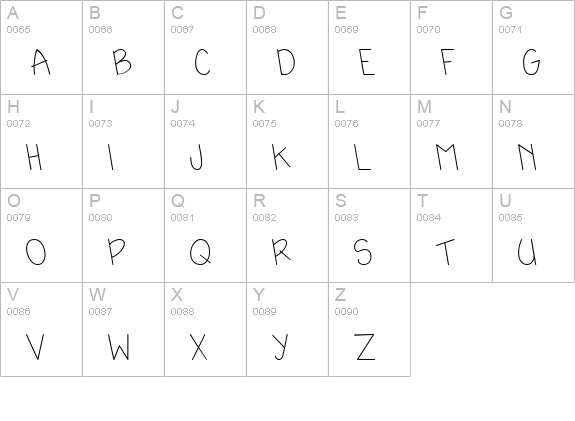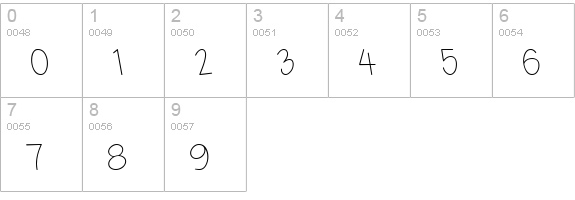
CK Girl Font Details
CK Girl font is a charming and elegant typeface that exudes a sense of sophistication and femininity. With its delicate strokes and graceful curves, this font is perfect for adding a touch of elegance to any design project. Whether you are creating invitations, branding materials, or social media graphics, CK Girl font is sure to make a statement. What makes CK Girl font even more appealing is that it is completely free to download. You can easily access this beautiful typeface at FontsMarket.com, where you can enhance your creative projects with this stunning font without any cost. So why wait? Download CK Girl font today and elevate your designs with its timeless beauty and charm.